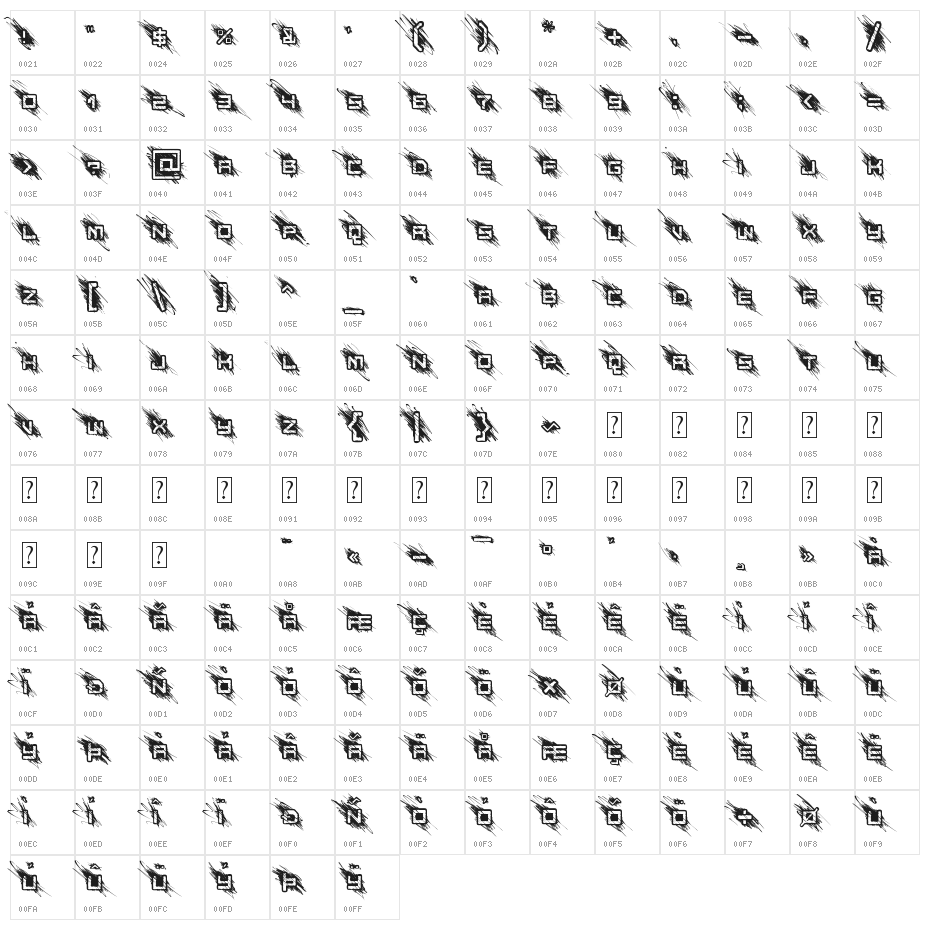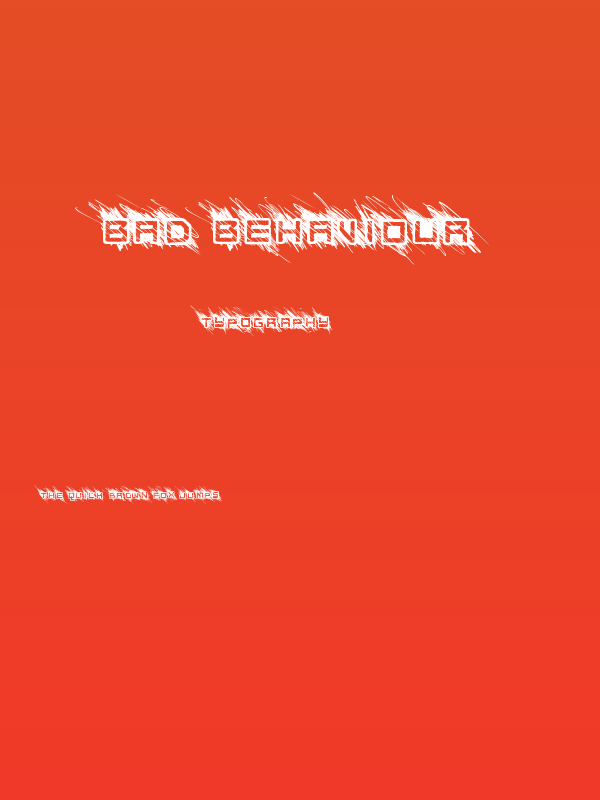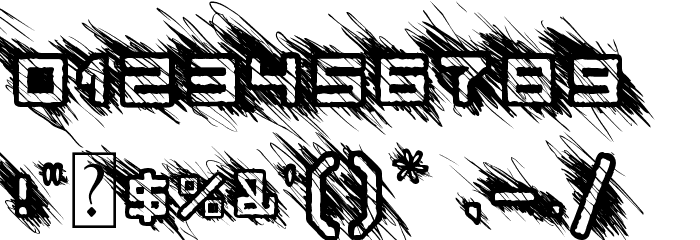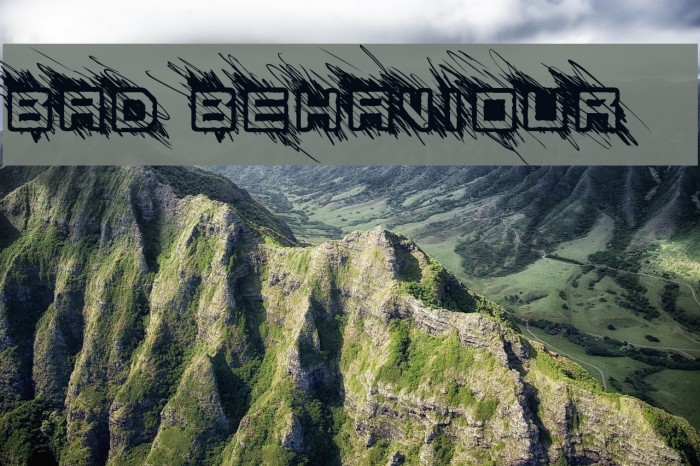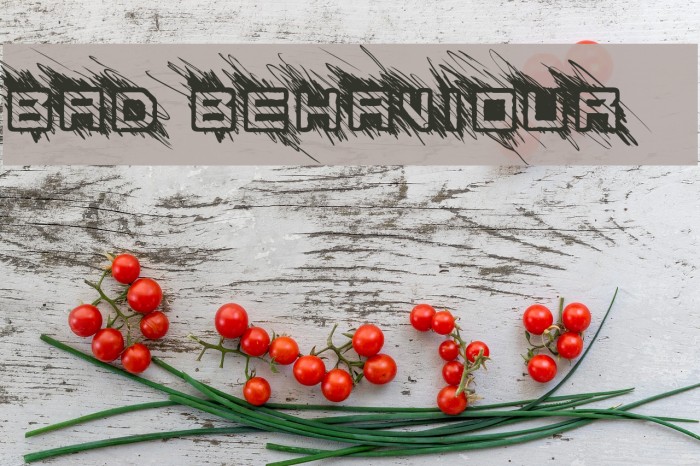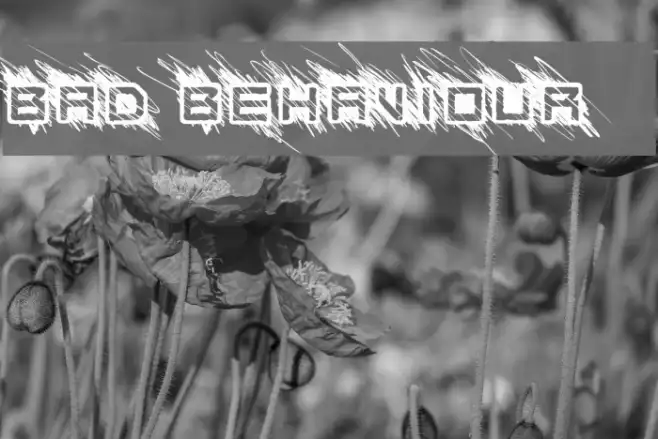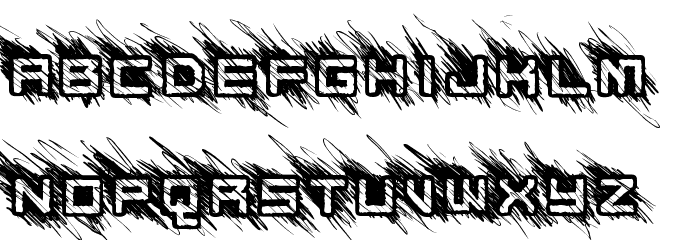
Bad Behaviour Font
Bad Behaviour Description
This font features a bold, edgy style with a distressed, graffiti-like appearance. The characters are outlined and filled with a chaotic, scribbled texture that gives a sense of movement and energy. The uppercase and lowercase letters maintain a consistent height, creating a uniform look despite the wild interior lines. The numbers and special characters follow the same design, ensuring cohesiveness throughout. This font is highly decorative and makes a strong visual impact, ideal for projects that require a bold statement.
| Overall Style | Modern, Urban |
| Proposed Projects | Perfect for urban-themed designs, music album covers, streetwear branding, and event posters. |